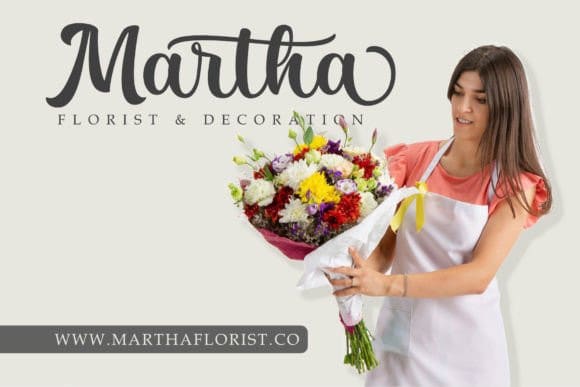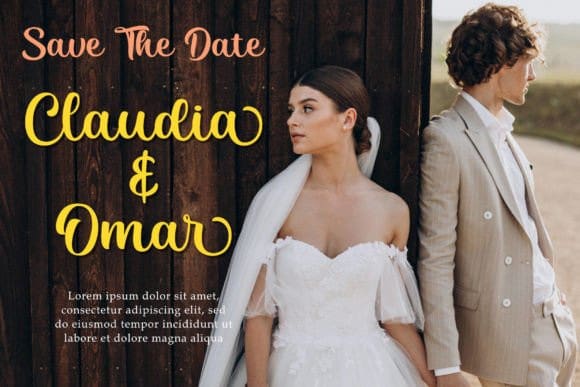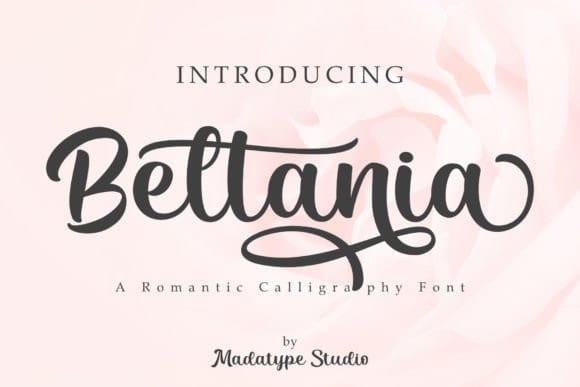
Beltania Script Font
Beltania Script Font is a romantic and sweet calligraphy typeface with characters that dance along the baseline. It has a casual, yet elegant touch. This font is PUA encoded which means you can access all of the glyphs and swashes with ease!
Create your best designs using Beltania, a romantic calligraphy font!